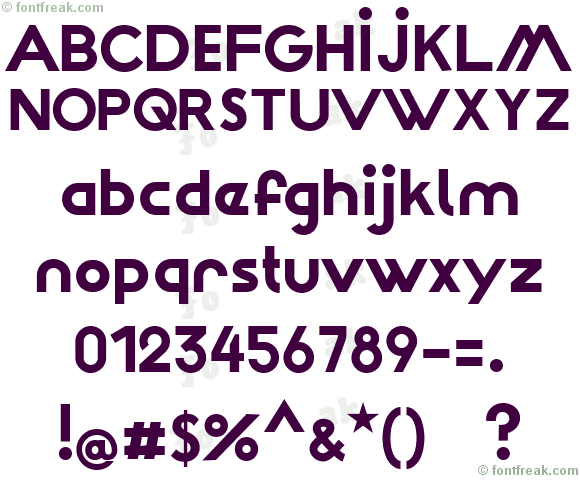
Wattauchimma
The Wattauchimma font, designed by Peter Wiegel, is a striking display typeface that embodies a unique blend of modern aesthetics and playful design. This sans-serif font features clean lines and a bold presence, making it an excellent choice for various creative projects. With its medium stroke weight and minimal contrast, Wattauchimma offers a friendly and approachable look, while its generous letter spacing enhances readability, making it suitable for both digital and print applications.
Wattauchimma stands out with its distinctive character shapes that incorporate subtle decorative elements, giving it a whimsical flair without compromising clarity. This font is perfect for a range of use cases, including eye-catching wedding invitations that demand attention, vibrant restaurant menus that invite diners to explore their offerings, and engaging movie posters that capture the essence of a film. Additionally, Wattauchimma can be utilized effectively in branding materials for small businesses looking to establish a memorable identity, as well as in social media graphics for content creators aiming to attract a specific audience.